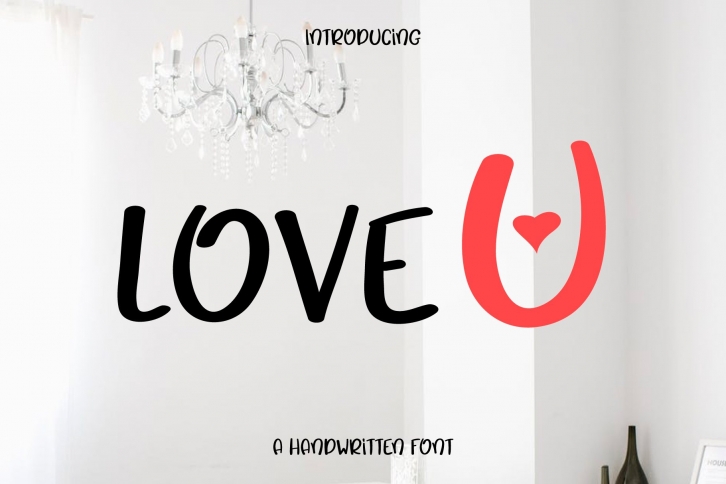
Love U is a great font that was designed by TS STUDIO ARTS. Imagine the amount of combinations you can create using this font! The archive is 15.38 MB and it was released on January 30, 2021. Love U looks beautiful on wedding invitations, greeting cards, logos, posters, labels, t-shirt designs, logos, business cards and is perfect for use in ink or watercolor works, fashion, magazines, packaging and food menus, children's books and more!